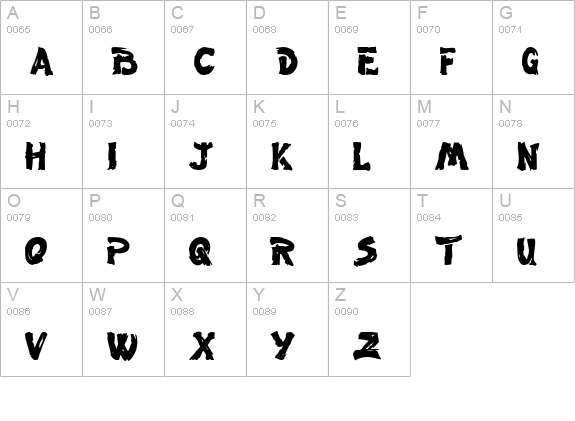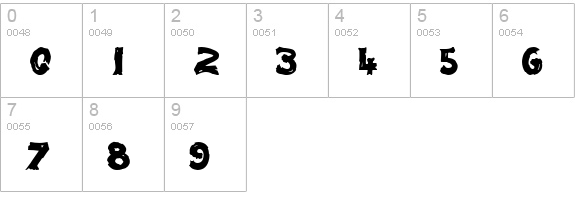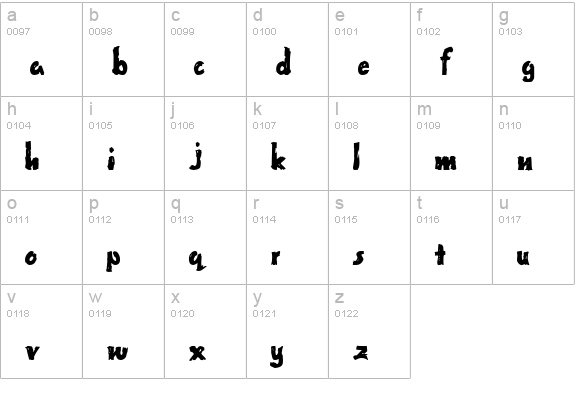
Introducing Wet Paint, a captivating and versatile font that effortlessly captures the essence of liquid artistry. With its fluid and dynamic letterforms, this typeface brings a sense of movement and vibrancy to any design project. Whether you're creating eye-catching headlines, expressive logos, or innovative packaging, Wet Paint is sure to leave a lasting impression. This font's unique brush strokes beautifully mimic the unpredictable flow of wet paint on a canvas, adding an organic and artistic touch to your creations. Its carefully crafted curves and irregularities give each character a natural and handcrafted feel, making it perfect for projects that require a touch of authenticity and originality. What sets Wet Paint apart is not only its stunning aesthetics but also its accessibility. This font is freely available to download at FontsMarket.com, allowing designers, artists, and enthusiasts alike to unleash their creativity without any financial constraints. Combining the best of both worlds – exceptional design and affordability – Wet Paint breaks down barriers and invites everyone to explore the endless possibilities of typography. Whether you're a professional designer or an aspiring artist, Wet Paint is a valuable asset to have in your font library. Its wide range of weights and styles provides ample versatility, ensuring that it can adapt to any design concept or project requirement. From bold and impactful headlines to delicate and elegant scripts, Wet Paint offers a plethora of options to suit every artistic vision. With its seamless legibility and ability to evoke emotion, Wet Paint is a font that effortlessly communicates your message to your audience. Whether you're aiming for a bold and daring statement or a soft and romantic sentiment, this typeface adapts to your needs, making it an essential tool for any creative endeavor. So why wait? Dive into the world of Wet Paint and let your imagination run wild. Download this extraordinary font for free at FontsMarket.com and unlock a universe of design possibilities. Whether you're a seasoned professional or a passionate hobbyist, Wet Paint is here to elevate your creations and empower you to make a lasting impact.